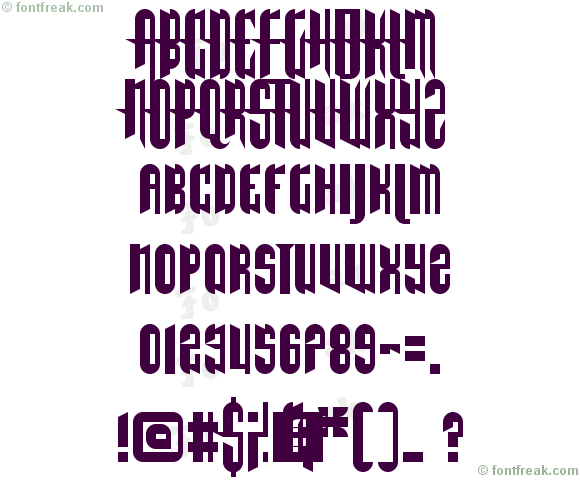
The End Of Days Regular
The End Of Days Regular, crafted by Andrew McCluskey in 2014, is a striking display font that embodies a unique blend of gothic and modern styles. This decorative typeface showcases bold, angular letterforms that evoke a sense of drama and intensity, making it a perfect choice for projects that require a strong visual impact. The stroke weight is consistently heavy, with sharp edges and an imposing presence, while the overall contrast is defined by the stark black against white backgrounds, enhancing its readability and aesthetic appeal.
The visual characteristics of The End Of Days Regular include notable decorative elements such as extended serifs and pointed terminals, which contribute to its gothic-inspired look. The spacing is thoughtfully designed, ensuring that each character stands out without compromising legibility, making it suitable for various applications.
This font excels in several use cases, including eye-catching movie posters that demand attention, unique branding for horror-themed events, and edgy album covers for music genres such as metal or punk. Additionally, it can be effectively used for book titles and cover designs, particularly in the fantasy or supernatural genres, as well as for promotional materials aimed at niche markets.
Targeting graphic designers, small business owners, and content creators, The End Of Days Regular offers a fresh and innovative option for those looking to make a bold statement. Whether you are designing for print or digital media, this font adds an unforgettable touch to any project.